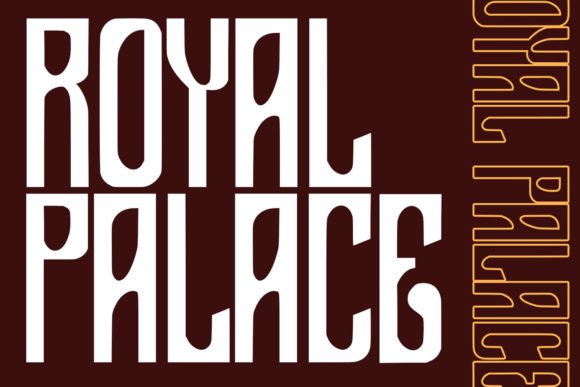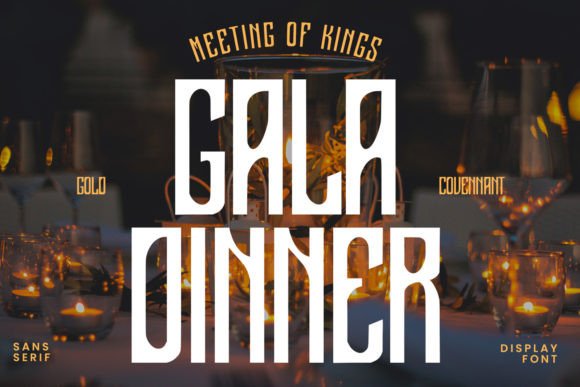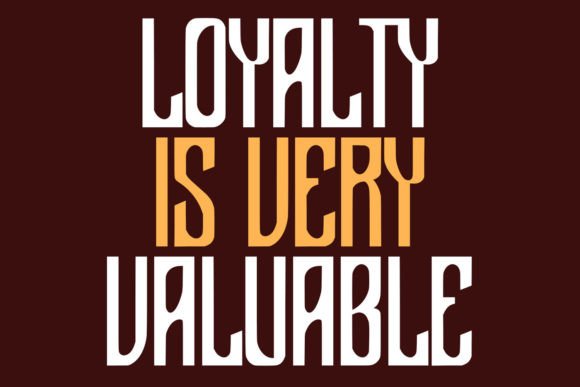
Introduction to Joquell Font
Joquell is a Classic sans serif display font.
Bold strokes, fun character with a bit of ligature and alternates This font is good for logo design, Social media, Movie Titles, Books Titles, short text even long text letters, and is good for your secondary text font with script or serif.
Key Features of Joquell Font